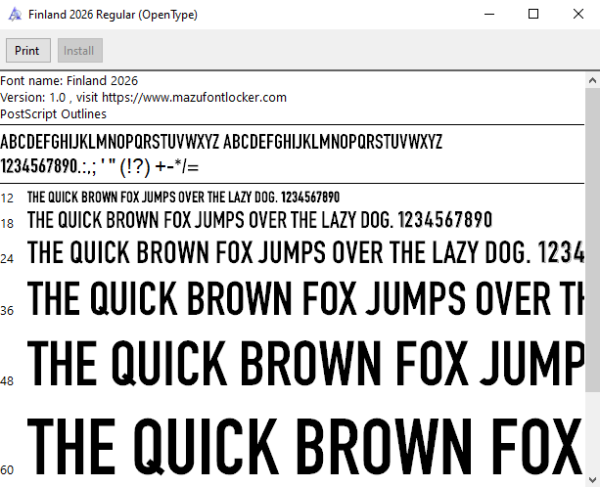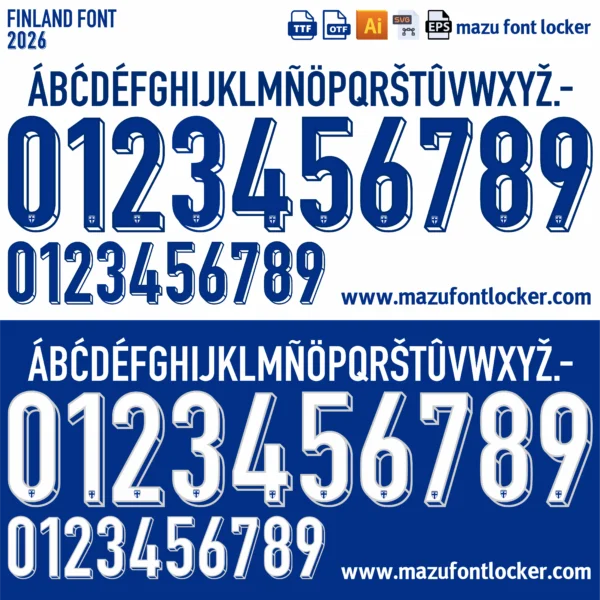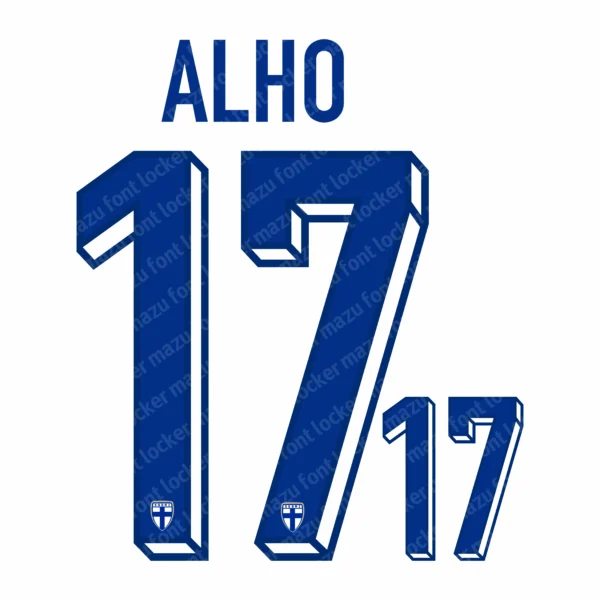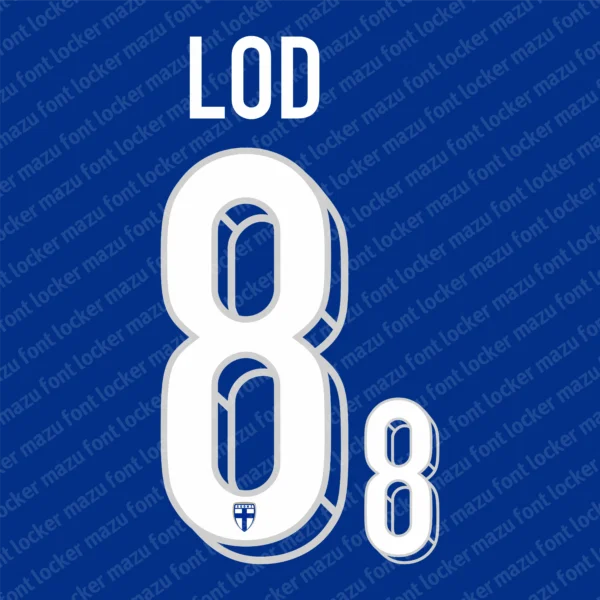
Finland 2026 Font Vector – Epic Nordic Masterpiece
Download the Finland 2026 Font Vector (AI, EPS, SVG, PDF, OTF, TTF) and unleash the bold, thunderous, and ice-cold match typography that roared across the pitches during Finland’s explosive 2026 campaign. This premium font captures the commanding, fearless, and ultra-modern lettering that embodies the unbreakable Huuhkajat spirit — delivering raw Nordic power, relentless sisu, explosive attacking flair, tactical discipline, creative brilliance, and legendary Finnish resilience. Perfect for premium jersey mockups, football designs, dynamic sports visuals, fan creations, stadium graphics, epic tributes, and high-impact branding that radiate pure blue and white pride while celebrating the rise of Finland’s golden generation and their fearless conquest on the European stage.
Finland 2026 Font Vector – Authentic Huuhkajat Typeface
The Finland 2026 Font Vector is a premium typeface that accurately recreates the official match lettering worn by the Finland national team during the 2026 international season. This high-quality vector font kit captures the bold, Nordic-inspired typography that represents the rising generation of Finnish football.
Designed for professional designers and passionate Finland fans, the Finland 2026 Font Vector delivers perfect authenticity for creating realistic jersey mockups, fan merchandise, matchday posters, social media graphics, and tournament content. It pairs beautifully with the iconic blue home kit featuring the famous Suomen Palloliitto crest.
This font stands out because of its sharp vector precision and strong national identity. Every letter and number is crafted to match the exact style used on the players’ shirts during the 2026 campaign. Whether you are making realistic kit templates or exciting Huuhkajat content, the Finland 2026 Font Vector gives your designs that authentic Finnish look.
The letterforms in the Finland 2026 Font Vector are tall, bold, and highly readable. The strokes have a strong, clean weight with excellent edge definition that looks powerful on the back of jerseys while maintaining modern Nordic elegance and clarity.
• Full uppercase A–Z and numbers 0–9 in authentic Finland 2026 style
• Special Suomen Palloliitto crest glyph for accurate shirt number detailing
• Create highly realistic Finland 2026 home and away jersey mockups with accurate lettering
• Produce custom Finland national team merchandise with the 2026 aesthetic
The Finland 2026 Font Vector is an independently designed typeface package. It is carefully crafted to replicate the official shirt lettering style of the 2026 season. This font kit is perfect for creative projects, fan edits, nostalgic jersey designs, and custom football graphics.